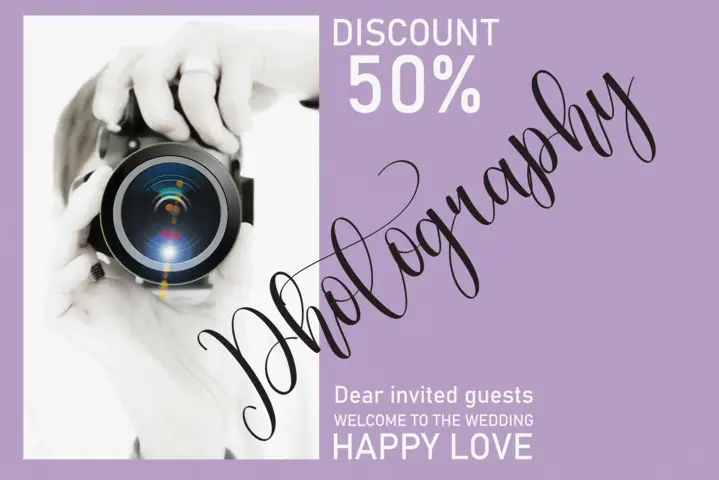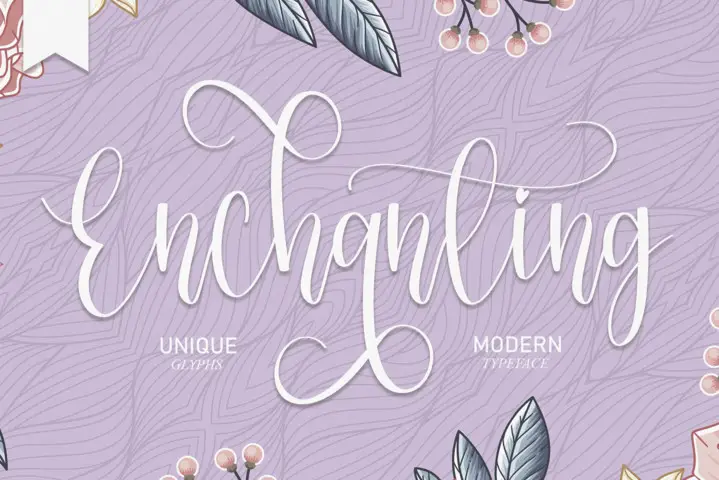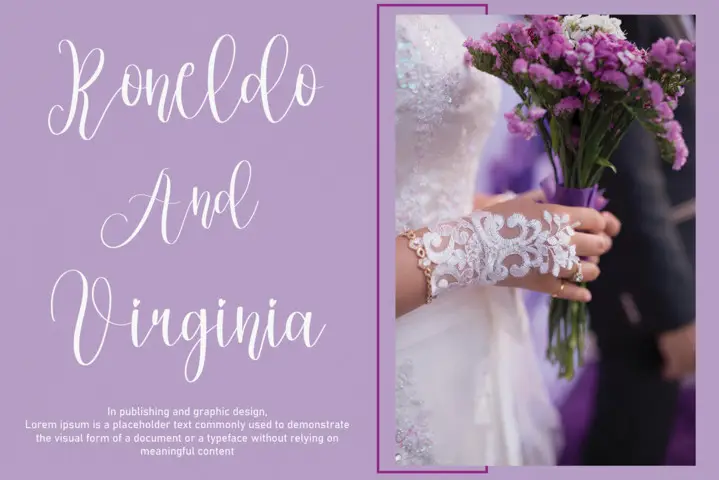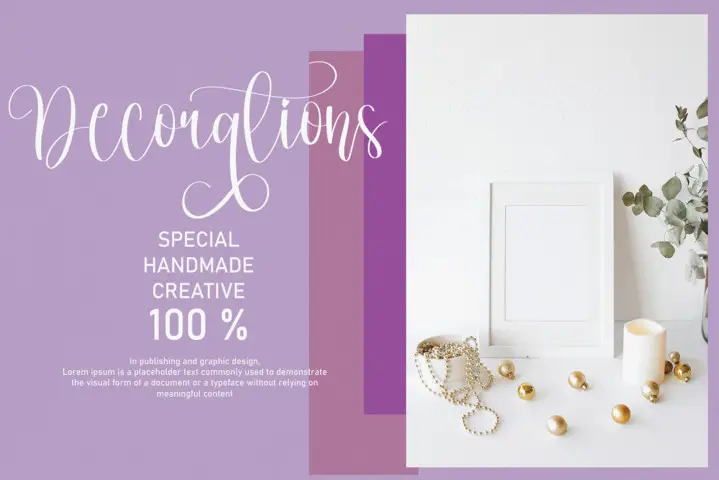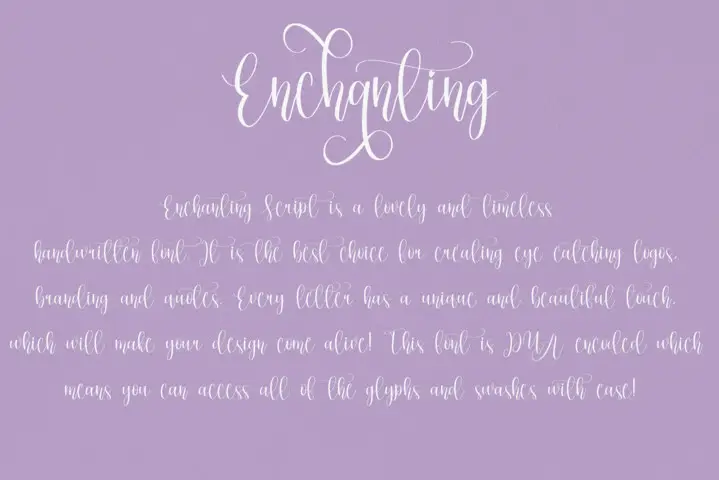
Enchanting Script Font
The Enchanting Script Font is a beautifully crafted typeface that adds a touch of elegance to any project. With its flowing curves and artistic flair, this font is perfect for creating stunning branding, eye-catching logos, and graceful invitations.
• Stylish script design with a modern twist
• Includes uppercase and lowercase letters, numbers, and punctuation
• Multiple weights for versatile usage
• Ideal for both print and digital applications
• Use for wedding invitations, greeting cards, and personal branding
• Pair with sans-serif fonts for a balanced design